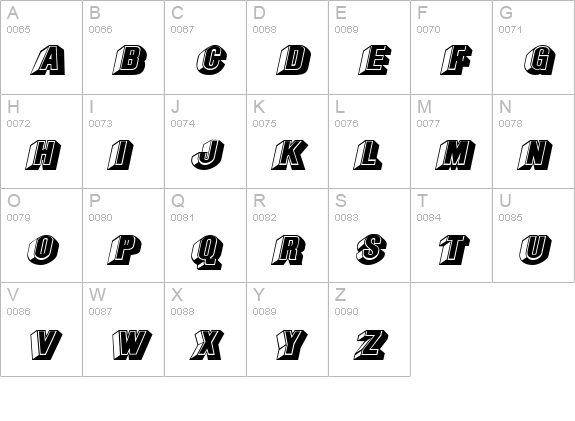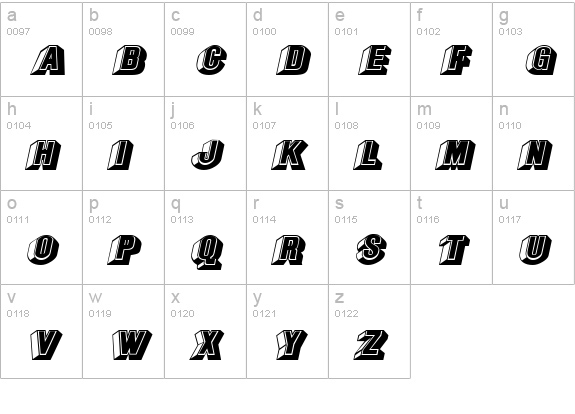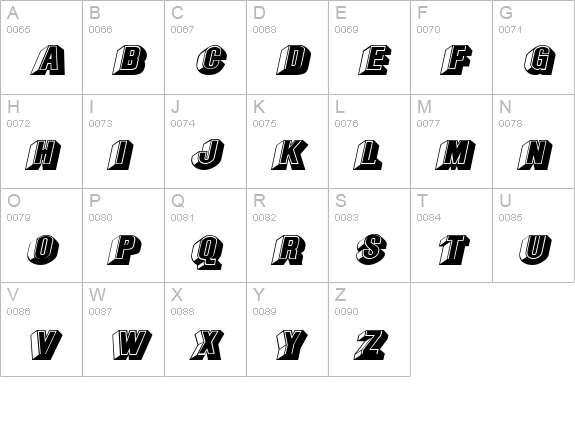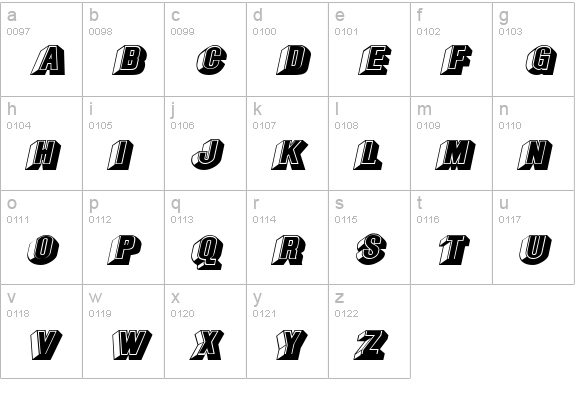
ChocolateExtended Italic Font Details
ChocolateExtended Italic is a distinctive, italic variant in the ChocolateExtended typeface family \xE2\x80\x94 well suited to design and typography projects.
Introducing ChocolateExtended Italic font - a sophisticated and elegant typeface that exudes a sense of luxury and refinement. With its flowing curves and stylish slant, this font is perfect for adding a touch of class to any design project. What sets ChocolateExtended Italic font apart is not just its exquisite design, but the fact that it is completely free to use. Yes, you read that right - this stunning font is freely available to download at FontsMarket.com. Whether you're working on a branding project, a wedding invitation, or a social media graphic, ChocolateExtended Italic font will elevate your design to the next level. Embrace the beauty and elegance of ChocolateExtended Italic font today and make a lasting impression with your next creative endeavor. Enhance your typography game with this free and fabulous font, now just a click away at FontsMarket.com.